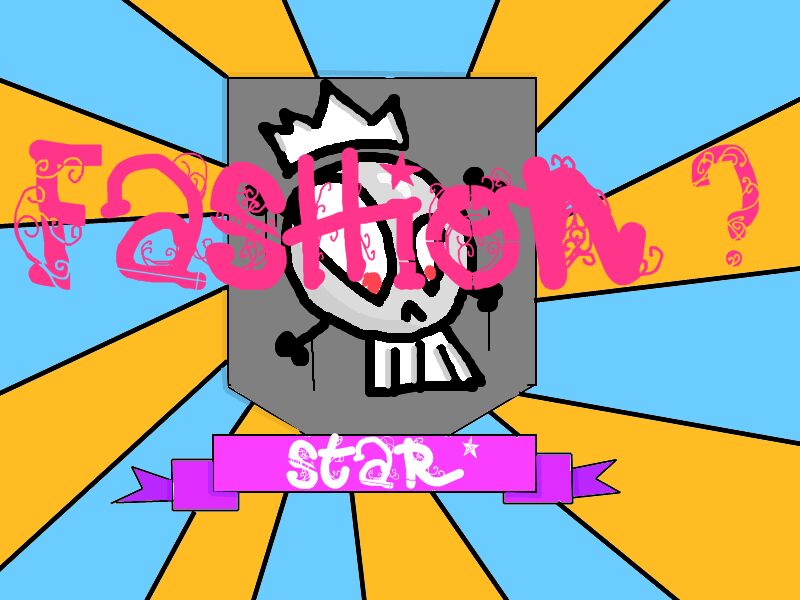
(afGiHmtV)* is a free curly display font built from broad, irregular letters and dense interior ornament. Swirling vines and striped details break across the strokes like inked doodles. The silhouette feels theatrical and mischievous.
The curling plant motifs link the lettering directly to storybook illustration, making it apt for children's posters, fantasy game graphics, and novelty packaging. On music merchandise, the letters can function as illustrated shapes rather than neutral text, with their internal curls echoing hand-drawn artwork.